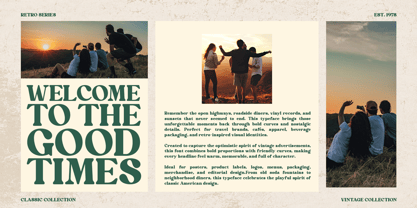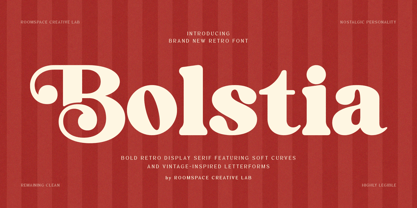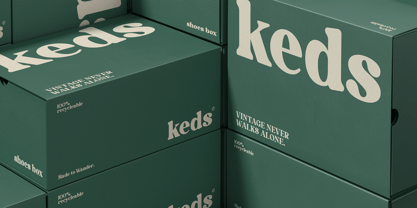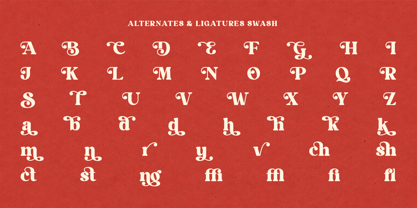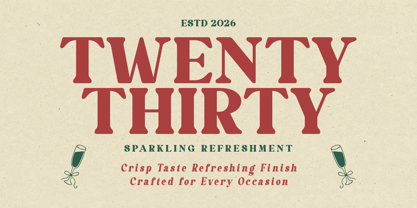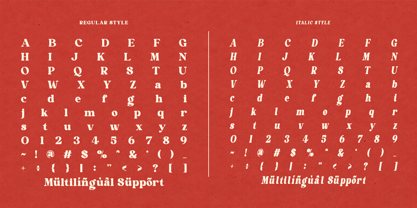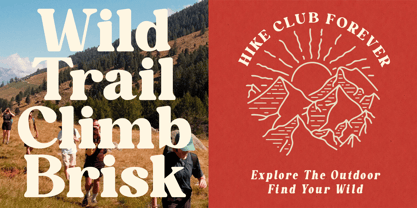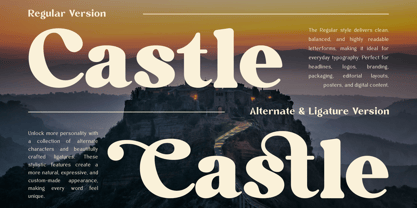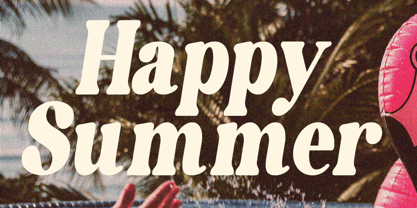
Bolstia
The Bolstia Font Family was designed by Bakhrudin Ja'far and published by Jafar07. Bolstia contains 2 styles and family package options. More about this family
Bolstia is a bold retro display serif inspired by classic American signage, vintage advertisements, old packaging, and nostalgic editorial typography. It features soft curves, sturdy proportions, and distinctive swash alternates that create warm, expressive headlines while maintaining excellent readability.
Designed primarily for display use, Bolstia is ideal for branding projects that require a timeless personality with a friendly vintage feel. Whether you're creating logos, product packaging, posters, café branding, apparel graphics, labels, or social media visuals, this typeface delivers a strong retro presence without sacrificing clarity.
The family includes both Regular and Italic styles, along with a collection of alternate characters and ligatures that allow you to create more customized and unique typography compositions.